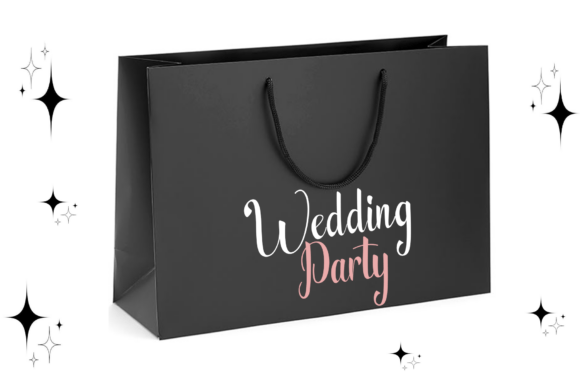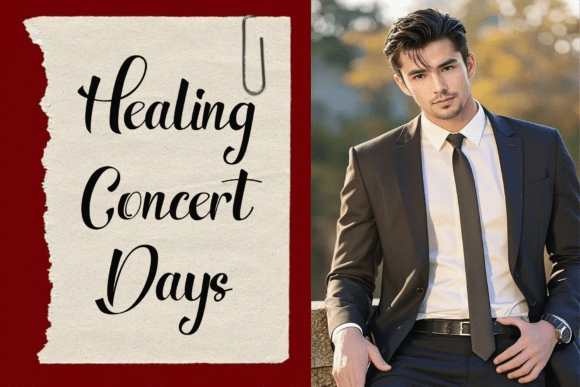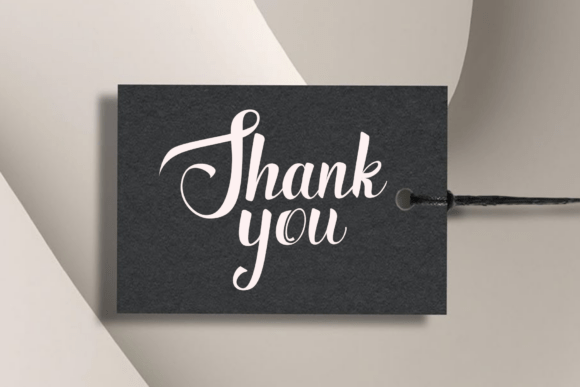
Bingo Font: Elevate Your Design Projects with Elegance and Softness
In the world of typography, fonts play a crucial role in conveying the tone and personality of a design project. For designers and crafters looking to add a touch of elegance and softness to their creations, Bingo Font is an excellent choice. This beautiful font is designed to exude a sense of femininity and sophistication, making it perfect for a wide range of design applications.
The Characteristics of Bingo Font
Bingo Font is characterized by its graceful strokes and delicate curves, which give it a distinctly feminine touch. The font’s softness and elegance make it an ideal choice for designers who want to create a romantic, whimsical, or vintage look. Whether you’re working on a branding project, creating wedding designs, or crafting invitations, Bingo Font is sure to elevate your design to the highest level.
Uses of Bingo Font
Bingo Font is a versatile typeface that can be used in a variety of design projects, including:
- Branding: Create a lasting impression with Bingo Font, perfect for logos, business cards, and letterheads.
- Wedding Designs: Add a touch of romance and elegance to wedding invitations, stationery, and decorations.
- Invitations: Make your invitations stand out with Bingo Font, suitable for baby showers, birthday parties, and other celebrations.
- Signs: Create eye-catching signs for events, businesses, or personal use with this beautiful font.
- Logos: Use Bingo Font to create a unique and memorable logo for your business or brand.
- Labels: Add a touch of elegance to your product labels, gift tags, or other paper crafts.
Why Choose Bingo Font?
With so many fonts available, why choose Bingo Font for your design projects? Here are a few reasons:
- Unique and Elegant: Bingo Font offers a distinctive and sophisticated look that will set your designs apart.
- Feminine Touch: The font’s feminine curves and softness make it perfect for designs that require a touch of elegance and whimsy.
- Versatile: Bingo Font can be used in a wide range of design projects, from branding and wedding designs to invitations and signs.
- High-Quality: This font is designed to deliver high-quality results, ensuring that your designs look professional and polished.
Tips for Using Bingo Font
To get the most out of Bingo Font, here are some tips to keep in mind:
- Pair with Other Fonts: Combine Bingo Font with other fonts to create a unique and visually appealing design.
- Pay Attention to Size: Adjust the font size to ensure that your text is clear and easy to read.
- Use it Sparingly: Use Bingo Font judiciously to avoid overwhelming your design – sometimes, less is more.
Bingo Font is a beautiful and elegant typeface that can elevate any design project to new heights. With its softness, femininity, and versatility, this font is perfect for designers and crafters looking to add a touch of sophistication and whimsy to their creations. Whether you’re working on branding, wedding designs, invitations, or signs, Bingo Font is an excellent choice. So why not give it a try and see how it can transform your designs?